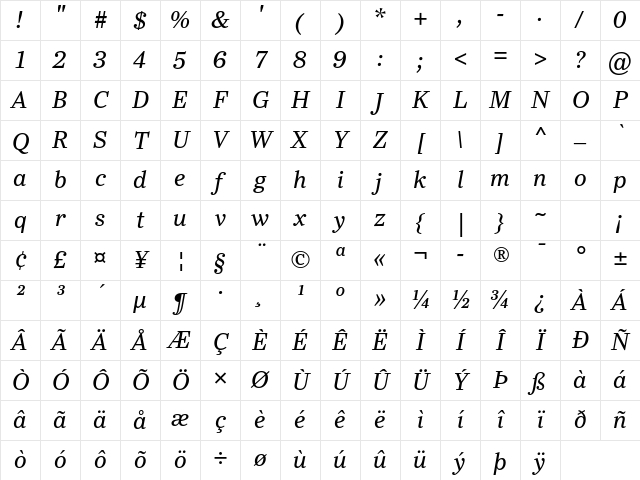
Complete Ysobel eText Italic glyph index. Displaying only characters natively supported by Ysobel eText Italic font.
Ysobel eText is a composed and adaptable typeface that performs quietly and consistently across a wide range of design contexts. The slanted form adds forward momentum and visual energy.
Pro Tip: Use Ysobel eText for emphasis, pull quotes, and subheadings where its slanted energy can add rhythm to the layout.